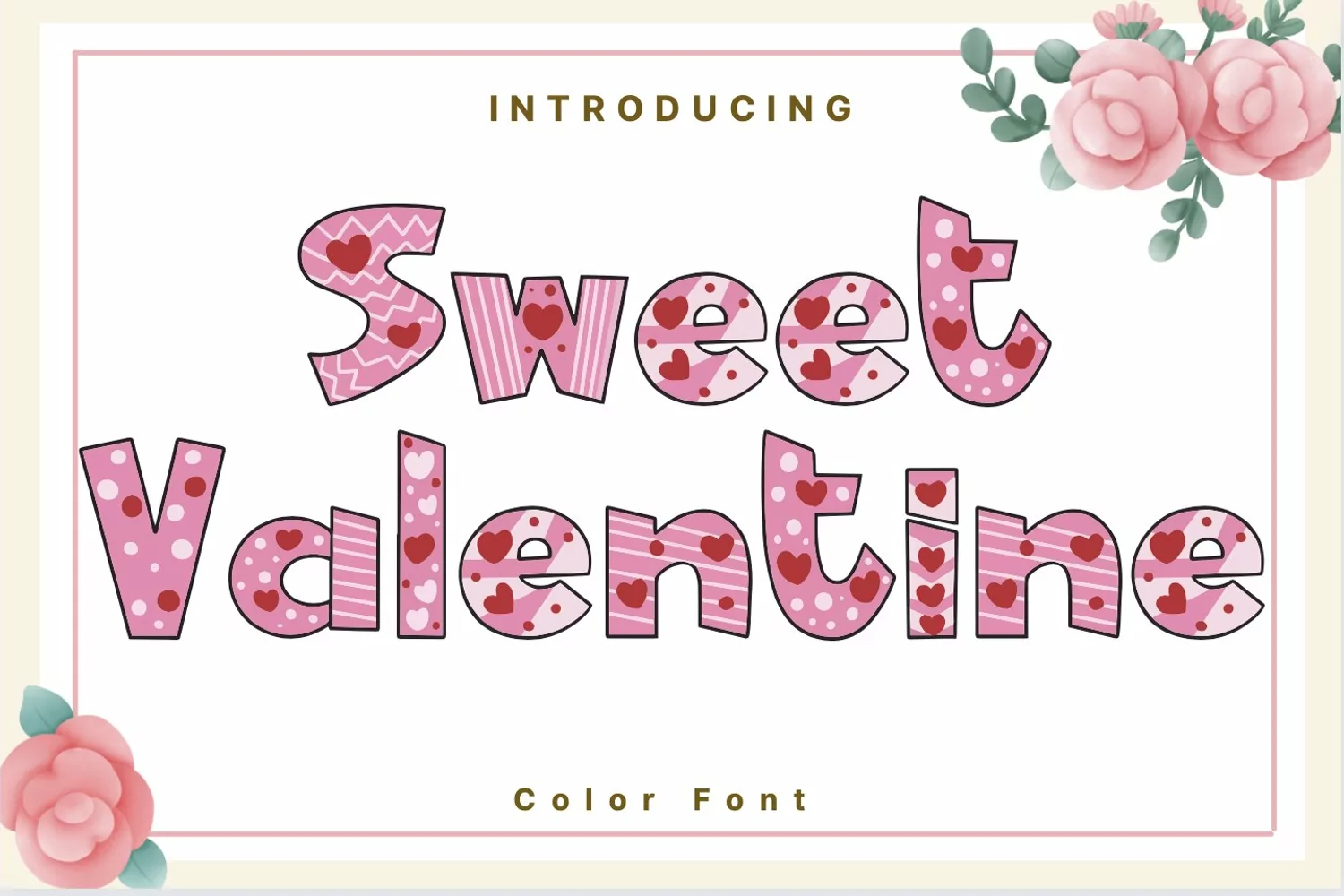
Sweet Valentine Style
SweetValentine
Sweet Valentine Style is a whimsical and clean handwritten font. It can easily be matched to an incredibly large set of projects, so add it to your creative ideas and notice how it makes them stand out!